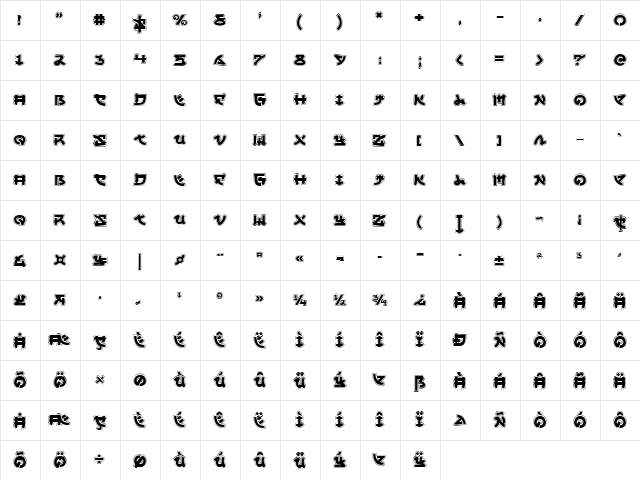
Yama Moto Academy Regular
Design Context for Yama Moto Academy Typeface
Yama Moto Academy is a composed and adaptable typeface that performs quietly and consistently across a wide range of design contexts.